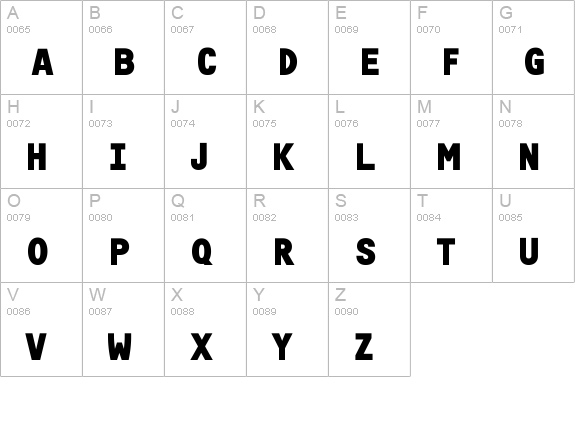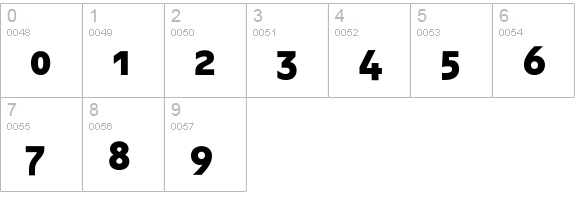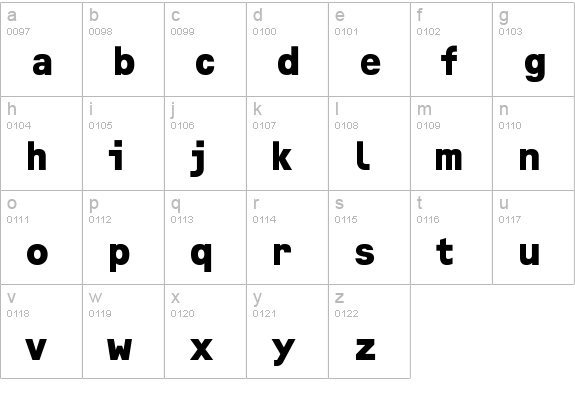
OCRF-BoldOSF Font Details
OCRF-BoldOSF is a bold and striking font designed with optimal character spacing for maximum readability. This versatile typeface is perfect for headings, titles, and any text that needs to make a bold statement. Its clean and modern look ensures that your message will stand out on any page. Best of all, OCRF-BoldOSF is completely free to download at FontsMarket.com. This means you can easily access this high-quality font without any cost, making it a great choice for all your design needs. Don't miss out on the opportunity to enhance your projects with this stylish and professional typeface. Download OCRF-BoldOSF today and take your designs to the next level!